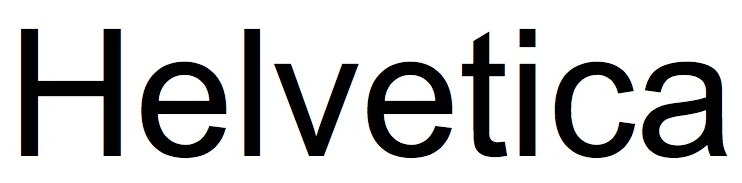
The Helvetica and Helvetica Neue families are my favourite for everyday use. It's just a wonderfully designed font.
I really cannot stand Cambria, though. That's got to be one of the ugliest fonts I've ever come across...
Trade Gothic Bold Condensed 20. Forceful and graceful at the same time. I also love Akzidenz Grotesk and Gotham.
Helvetica as well. Gary Hustwit's film is a really great mini-documentary/open love-letter to the font. Good music by El Ten Eleven in there as well.
My second favorite is probably Clearview, one of the newer highway sign fonts.
Back in my DTP days, I was always fondest of (for serif) Bookman and (sans serif) Eurostile. Headlines, preferably, Cooper Black.
Helvetica/Neue I love, but it is frightfully common. I love sans-serif type.
A close second and third are Myriad Pro and Univers, respectfully,
...and OP, you used Arial, not Helvetica, in your sample. 😉 Arial is a bastardized Microsoft version of Helvetica. Very similar, but so very different.
You guys think there's all that much of a difference between these sans-serif Grotesk type fonts/typefaces?
I do. Each has it's own look, and it's own use.
And did you post Arial intentionally instead of Helvetica or not? I'm just curious.